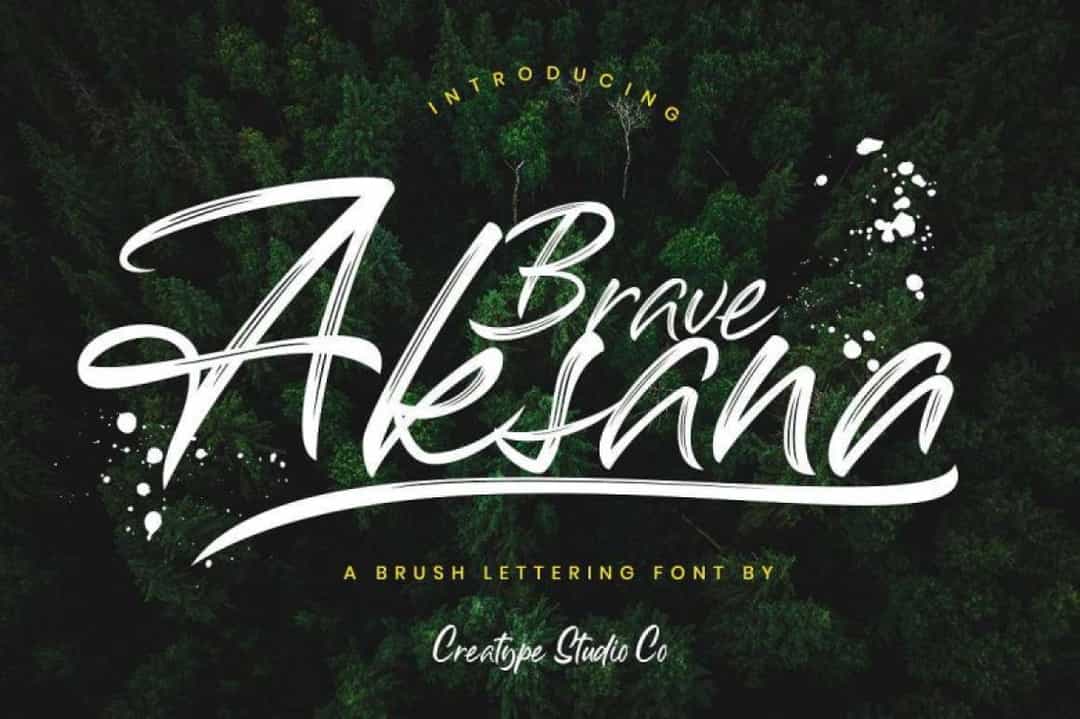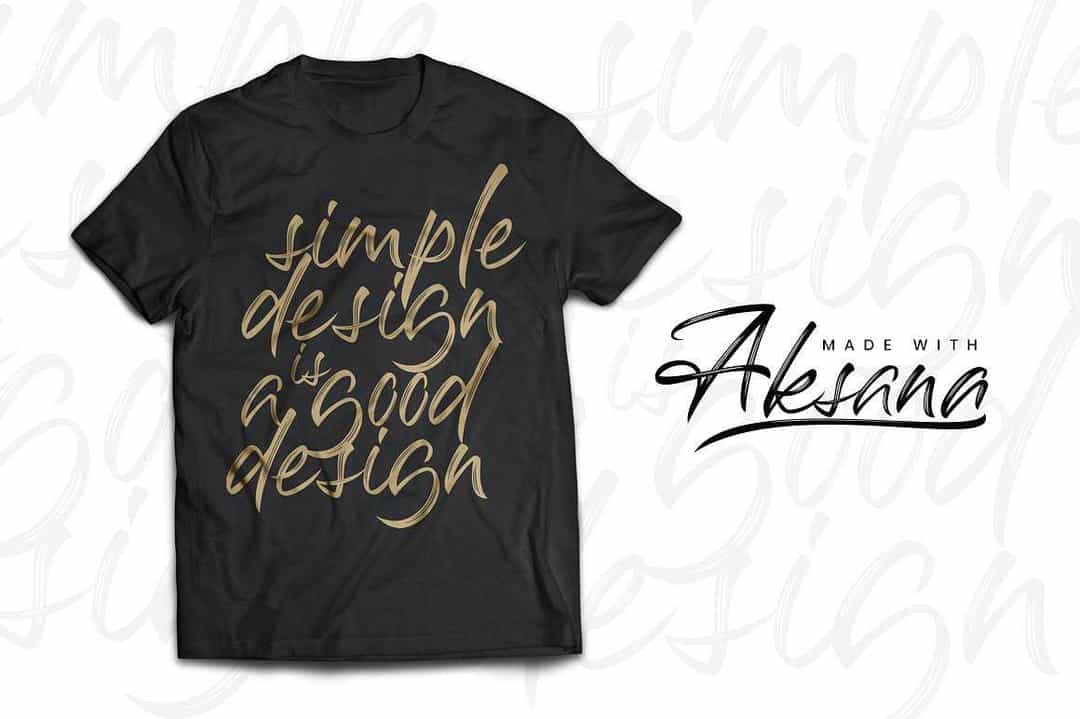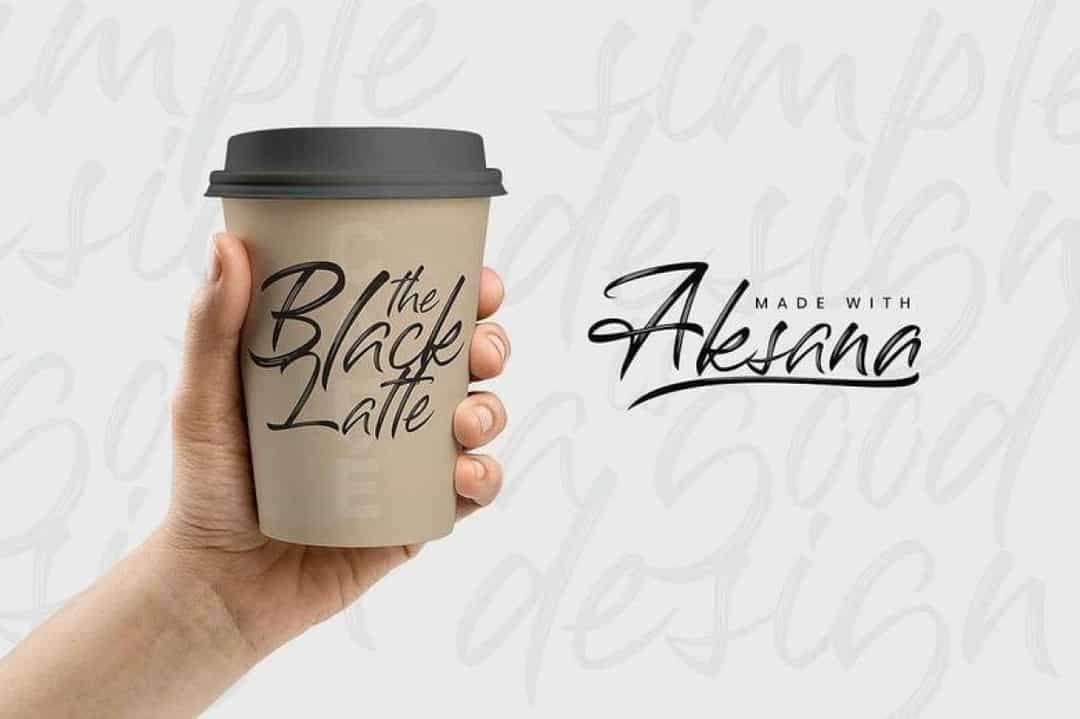
Introducing a font Aksana which is derived from my third son’s name Aksana Satya Rahardi This is a modern brush script handwriting font with the personal touch, looks smart and elegant Unfortunately, I do not have the version of the fonts I used for logos and designs I created for this type of look and texture